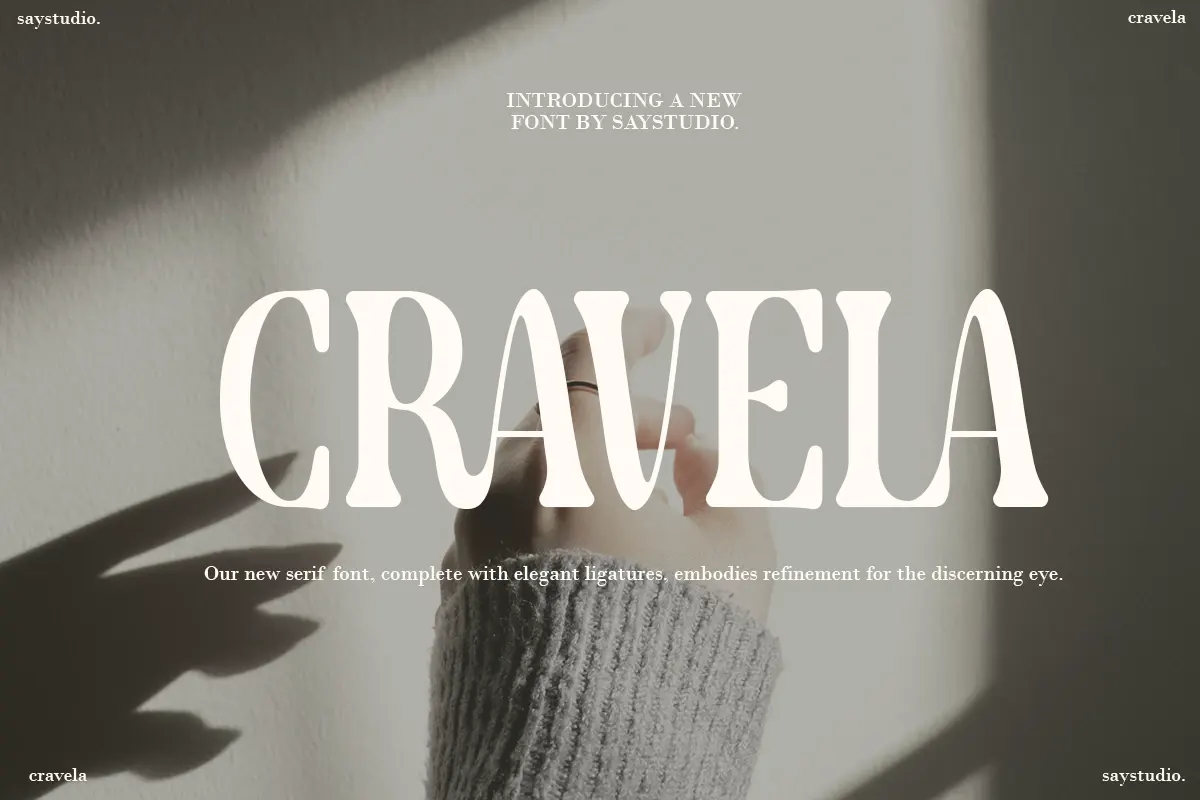
Cravela – Modern Serif Font Free Download is a stylish and refined serif typeface that blends classic elegance with modern edge. Perfect for luxury branding, editorial layouts, wedding invitations, and high-end packaging, this font brings sophistication and charm to any project.
Featuring elegant curves and well-balanced contrast, Cravela – Modern Serif Font Free Download adds a timeless, upscale feel to your typography. Whether you're designing a fashion label, a chic website, or premium print materials, Cravela enhances your visual identity with grace. Try it out in your next concept to see how it elevates your design before investing in the full commercial license. It’s a modern classic you’ll keep coming back to.